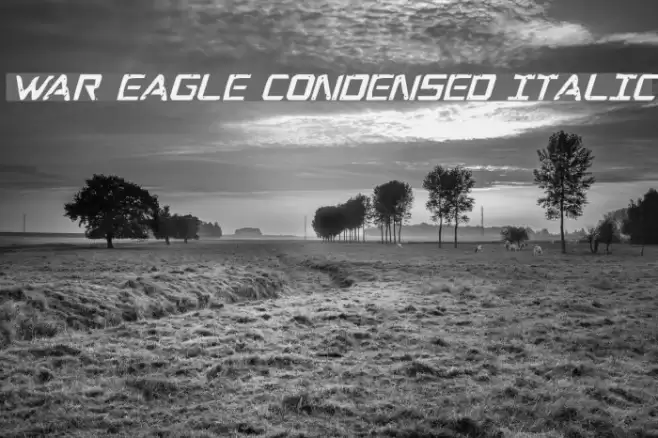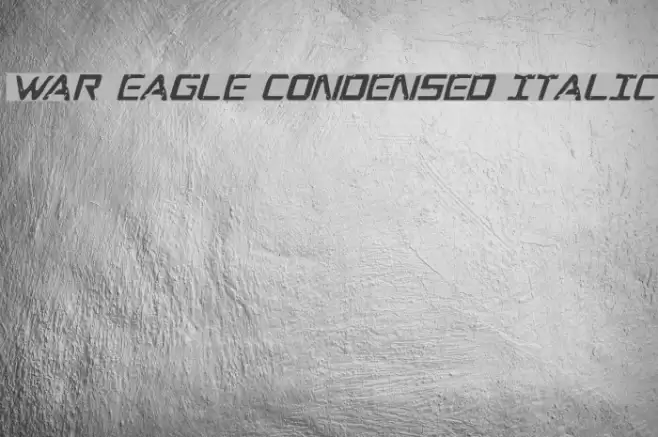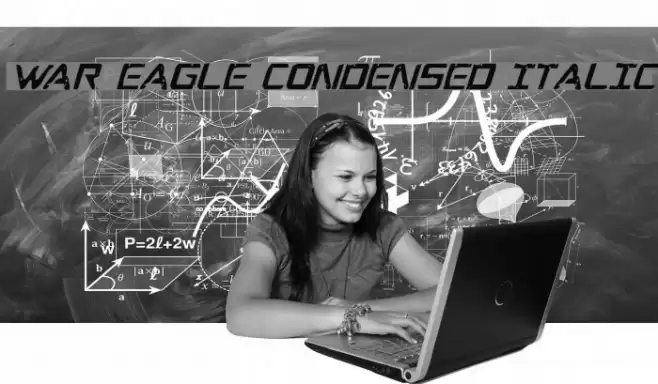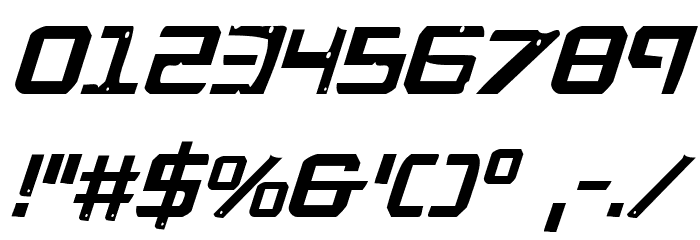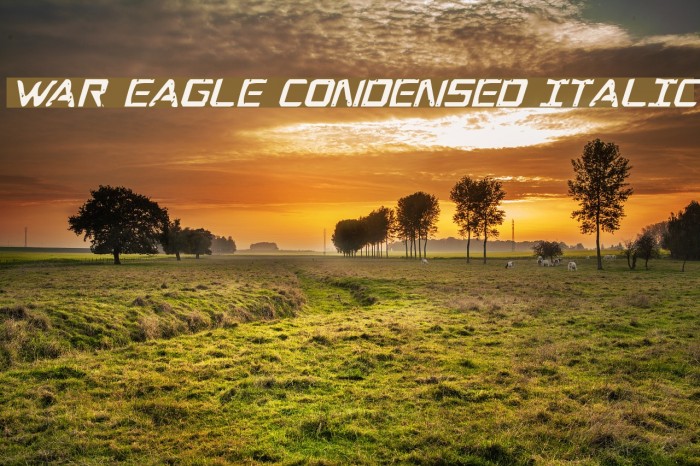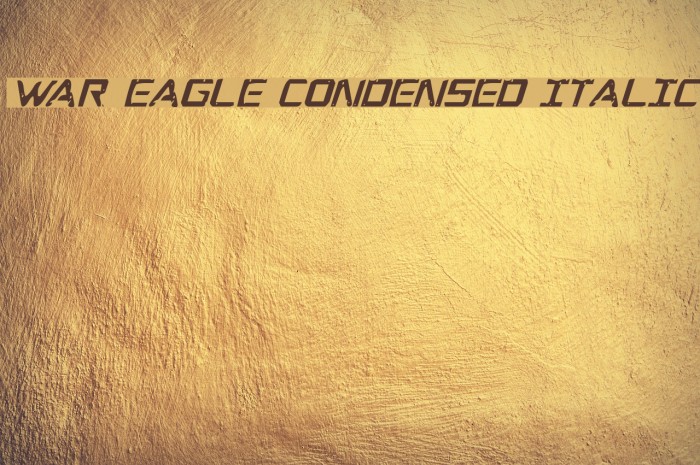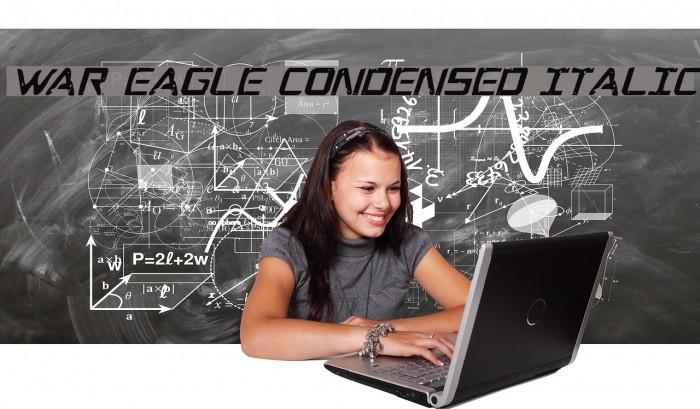
War Eagle Condensed Italic Font
War Eagle Condensed Italic Description
This font features a bold, condensed style with a distinct italic slant, giving it a dynamic and energetic appearance. The characters are designed with sharp angles and a futuristic aesthetic, making it stand out with its unique geometric cuts and edges. The uppercase and lowercase letters maintain a consistent style, while the numerals and special characters complement the overall design. The font's condensed width allows for efficient use of space, making it suitable for impactful headlines and titles.
A bold, condensed italic font with a futuristic and dynamic style from Distorted Eroded fonts.
- Proposed Projects: Ideal for sports branding, action movie posters, video game titles, and dynamic advertising campaigns.
- Character Spacing: Tight